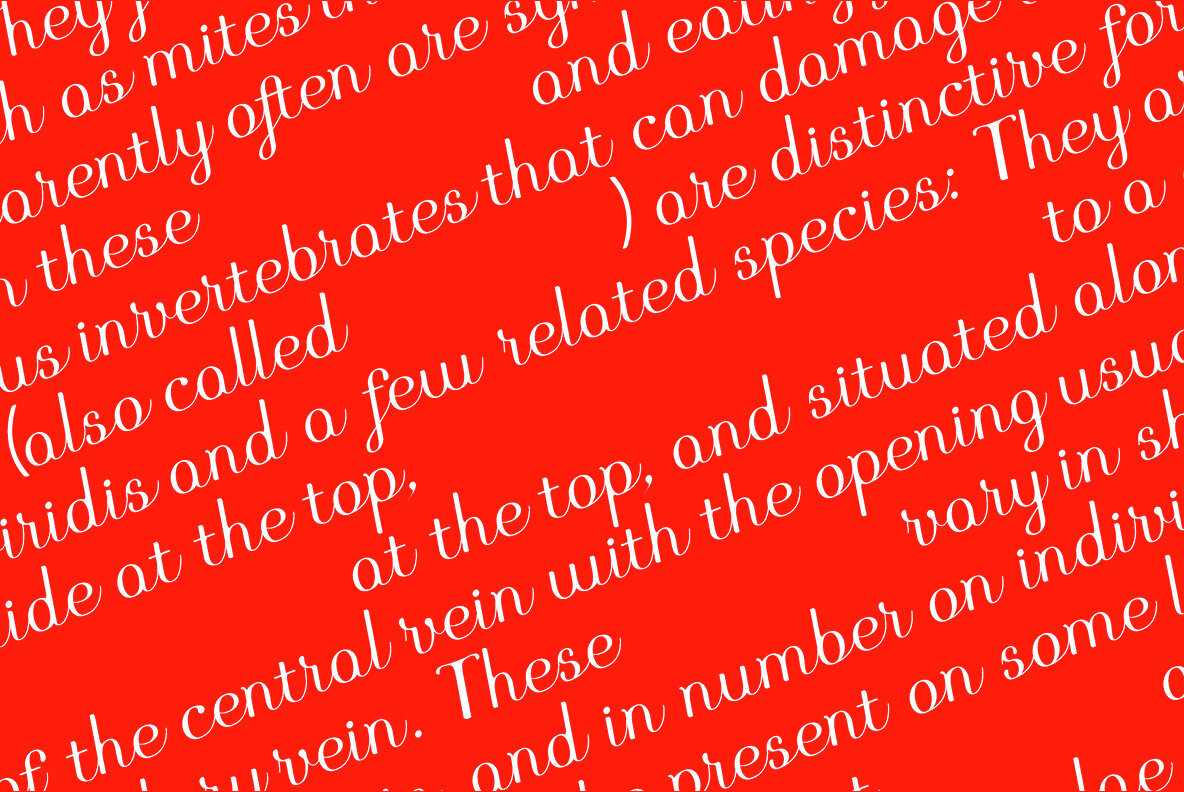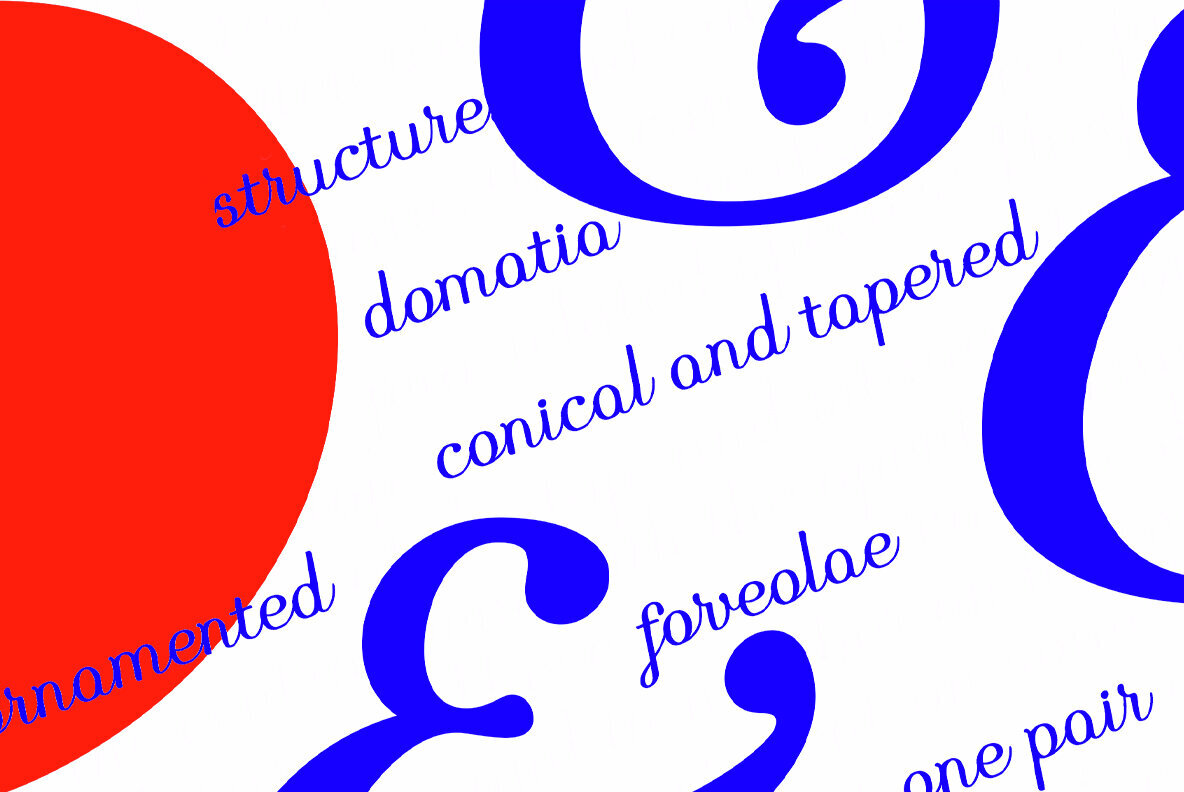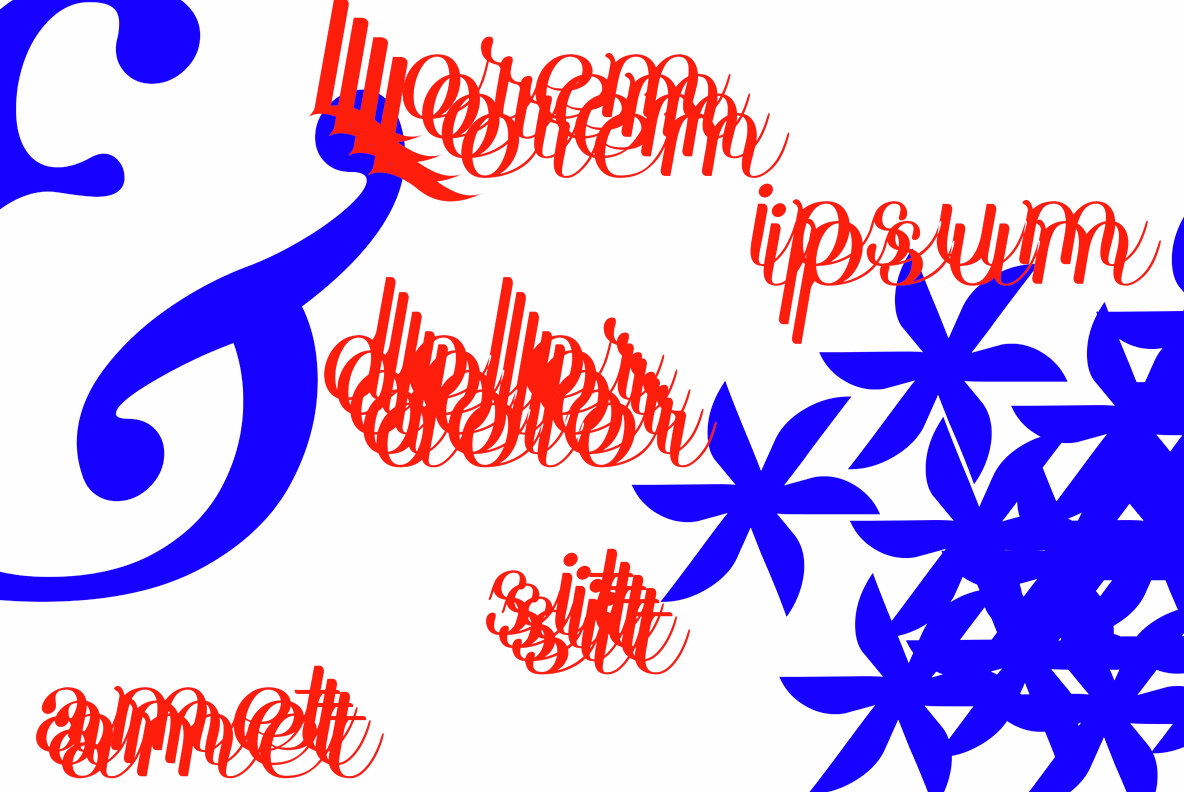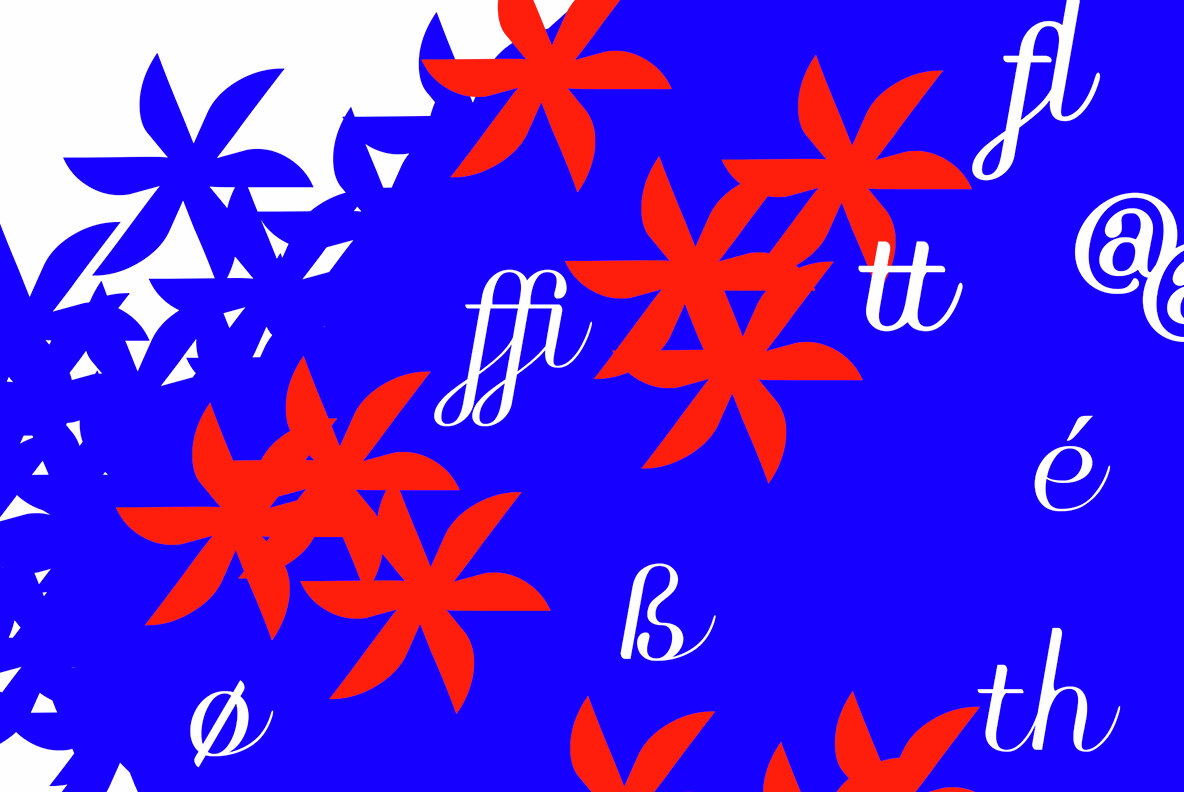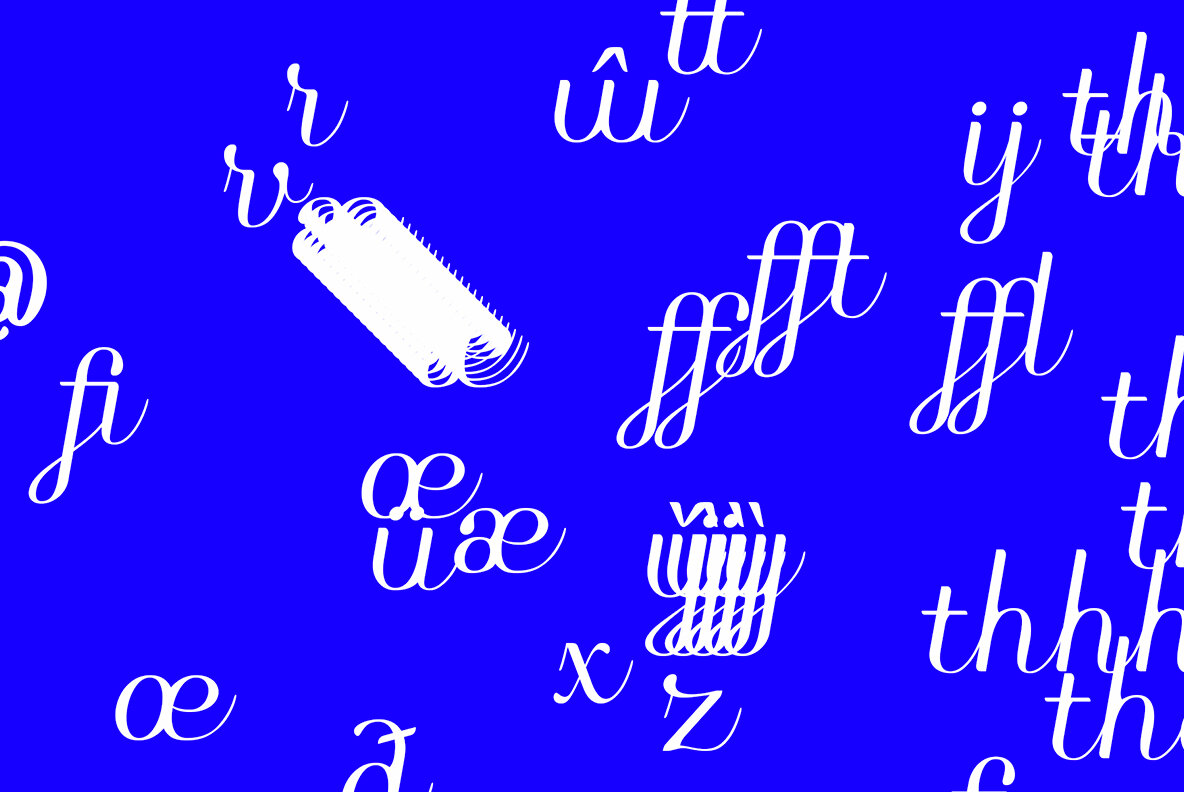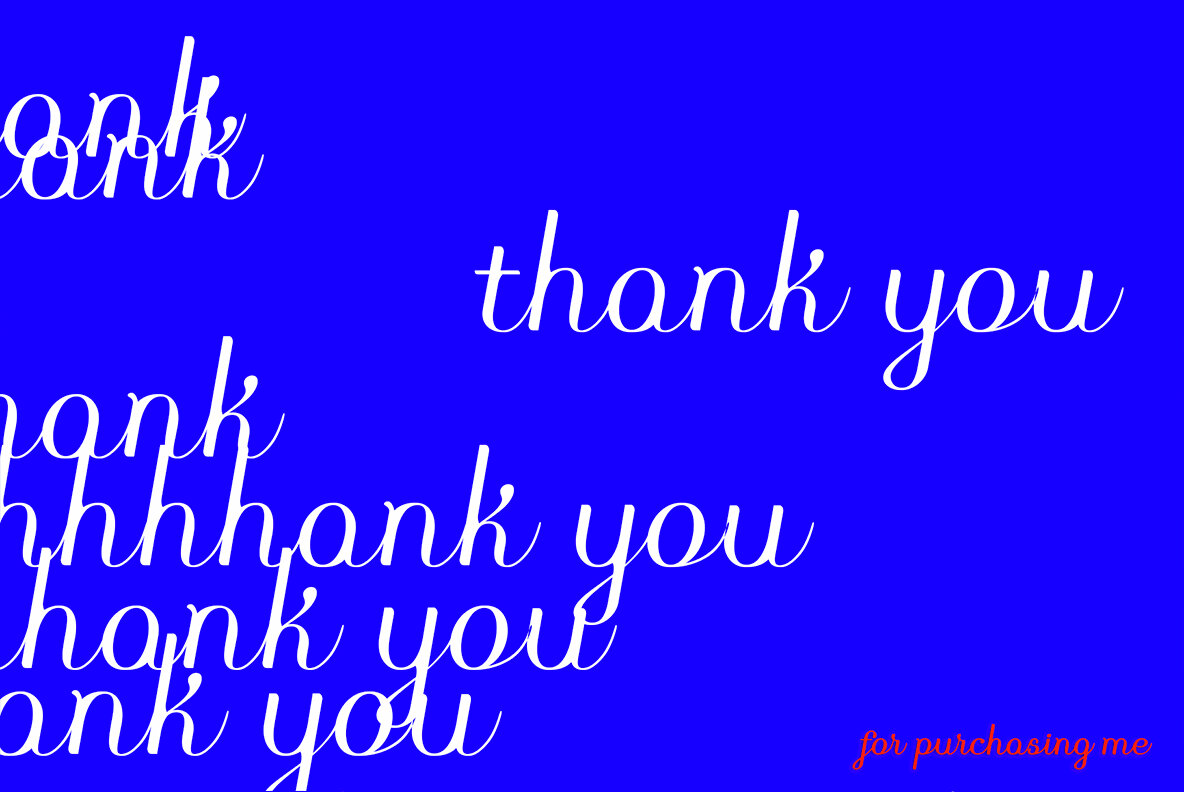
Mixteria Font
Welcome to the world of Mixteria Script Font – where the timeless allure of Gaudi's architectural wonders meets the finesse of modern typography. ️ Inspired by the mesmerizing curves and intricate details found in Gaudi's masterpieces, this font exudes sophistication and charm in every stroke. With its alternative capital letters, Mixteria offers a playground for creativity, allowing designers to craft truly unique and captivating compositions. Whether you're designing branding materials, invitations, or editorial layouts, Mixteria elevates your projects with its blend of elegance and innovation. Embrace the spirit of Gaudi's artistry and let Mixteria Script Font bring your visions to life. Explore endless possibilities and redefine your design aesthetic today.